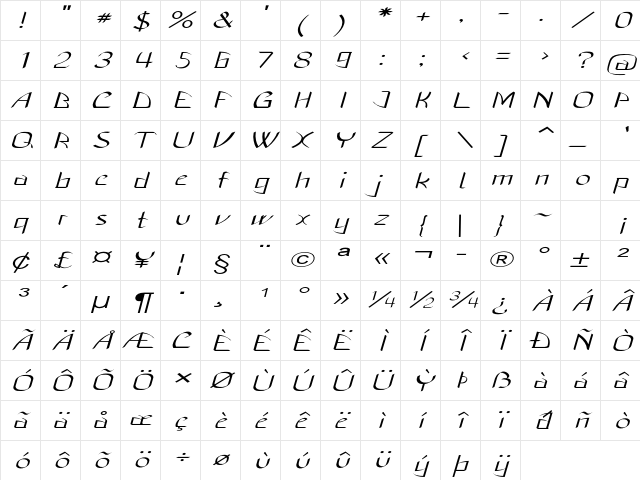
Complete Manzega Extra-expanded Italic glyph index. Displaying only characters natively supported by Manzega Extra-expanded Italic font.
Manzega is a composed and adaptable typeface that performs quietly and consistently across a wide range of design contexts. The slanted form adds forward momentum and visual energy.
Pro Tip: Use Manzega for emphasis, pull quotes, and subheadings where its slanted energy can add rhythm to the layout.